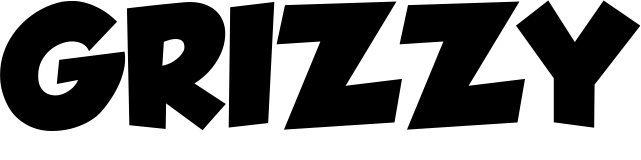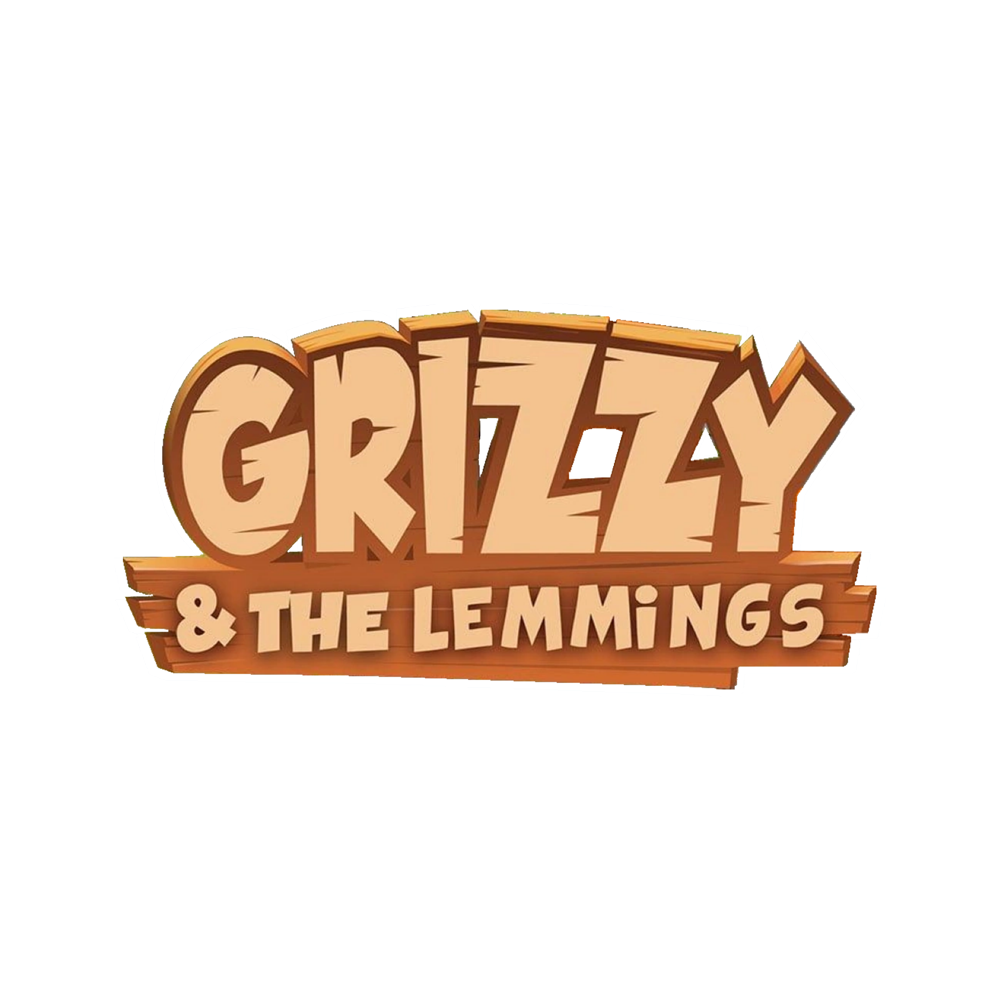
Grizzy and the Lemmings [TV Show] Font
AnimationGrizzy & the Lemmings is a French animated series produced by Studio Hari. Grizzy and the Lemmings follow the misadventures of Grizzy, a grizzly bear who tries to keep the lemmings from causing chaos in his forest home.
The title of the TV series Grizzy & the Lemmings uses two fonts; the text “GRIZZY” is an altered Grobold by Guy Buhry and the part "& THE LEMMINGS" is written in Comix Loud by images. Both fonts are available for Free download in the Fonts Used Section.